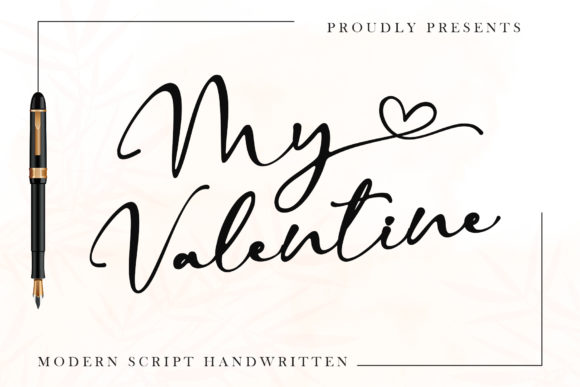
Step into a world of romance and elegance with My Valentine Font, the captivating script typeface designed to paint your words with grace and charm. Let your designs dance with the rhythm of love, as this font adds a touch of sophistication and allure to your creative endeavors.
Indulge in the romantic aura of My Valentine Font, a handwritten masterpiece that evokes emotions and ignites imaginations. Create stunning Valentine's cards that whisper sweet nothings, greeting cards that convey heartfelt sentiments, and stationery that exudes charm and personality. This font is not merely a collection of letters; it is an invitation to express your love in a way that resonates with hearts.
Beyond the realm of romance, My Valentine Font opens up a universe of creativity for branding and beyond. Imagine your logo adorned with the elegant curves of My Valentine, leaving an unforgettable impression on your audience. Unleash your imagination and craft designs that exude a timeless allure, whether it's for posters, invitations, or social media graphics.
As you embark on your creative journey with My Valentine Font, you'll discover a versatile companion that effortlessly adapts to your needs. Whether you seek a touch of elegance, a dash of charm, or an outburst of romance, this font delivers. Experience the joy of seamless adaptability, allowing your designs to shine in any context.
My Valentine Font is more than just a font; it's an expression of love, a celebration of life, and a testament to the beauty that surrounds us. Embrace the allure of this stunning script and transform your designs into timeless masterpieces. Let My Valentine Font be the voice of your heart, guiding your words onto a canvas of emotions.